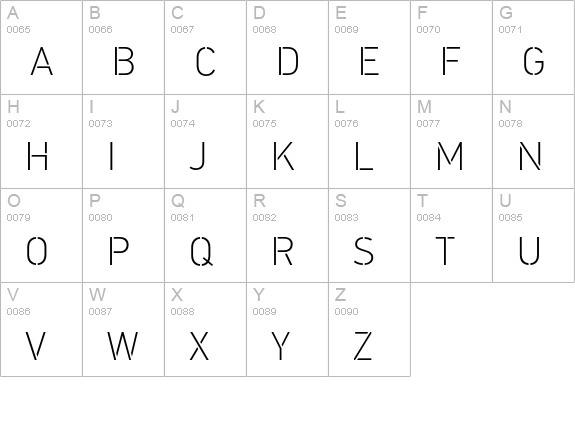
PFDinStencil-Thin is a delicate, low-contrast variant in the PFDinStencil typeface family \xE2\x80\x94 well suited to fashion editorial, minimal branding, and high-contrast display.
PFDinStencil-Thin font is a sleek and modern typeface that exudes elegance and sophistication. Its thin stenciled design makes it perfect for adding a touch of contemporary flair to any project. The clean lines and sharp edges of this font give it a stylish and polished look that is sure to make a statement. Best of all, PFDinStencil-Thin font is available for free download at FontsMarket.com. Whether you're working on a graphic design project, creating a logo, or simply looking to add a touch of class to your designs, this font is a versatile choice that will elevate your work to the next level. Don't miss out on the opportunity to enhance your designs with this beautiful and free font. Download PFDinStencil-Thin today and see the difference it can make!